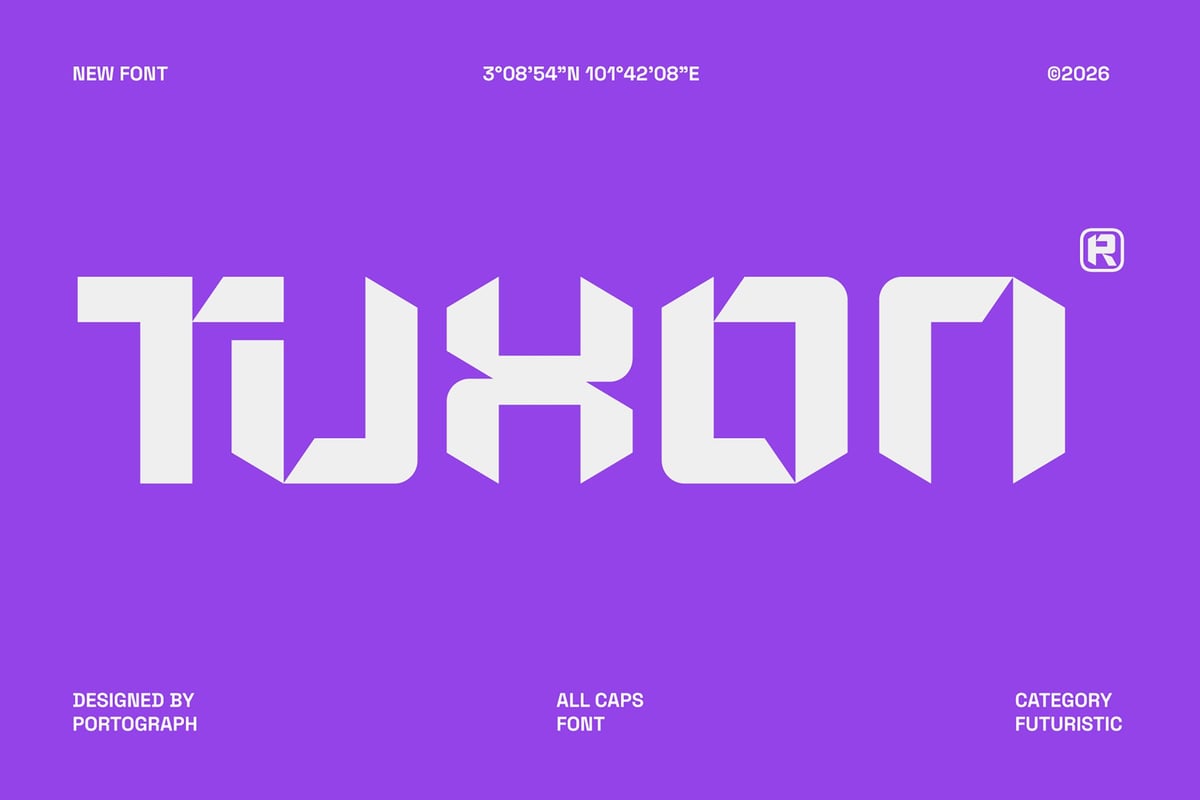
Tuxon – Modern Futuristic Font
Transform your tech projects with Tuxon – a bold futuristic display font built for the digital age. Tuxon delivers sharp geometric shapes, robust structure, and a clean grid system that creates a forward-thinking visual identity. This typeface excels in high-impact applications where modern technology meets innovative design aesthetics. Perfect for tech startups, AI projects, gaming visuals, and virtual reality experiences, Tuxon's all-caps construction ensures maximum clarity and consistency. T...